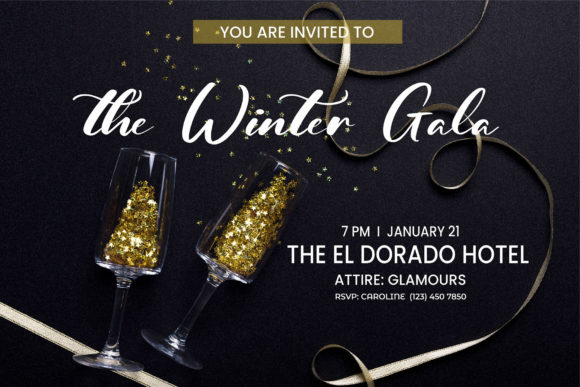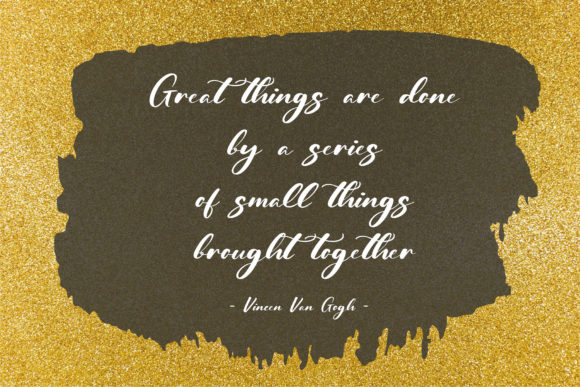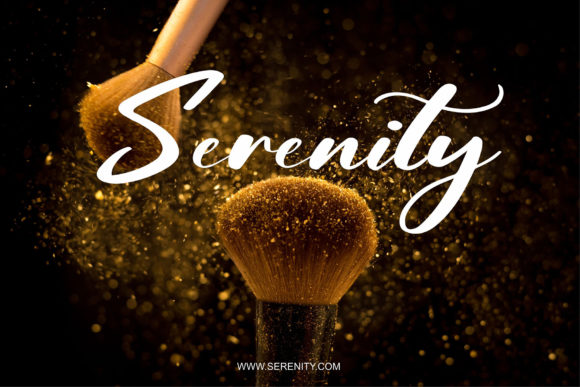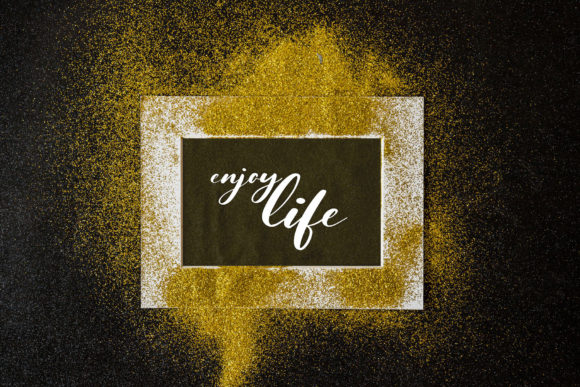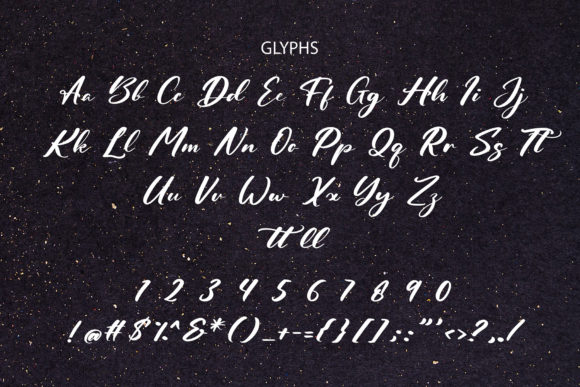
Introduction to Kagitta Font
Kagitta is an elegant handwritten font.
This gentle font will look gorgeous on a variety of design ideas It will add a joyful and romantic touch to each of your projects.
Kagitta Font offers exceptional quality and versatility, making it a valuable addition to your design toolkit. Whether you’re creating for personal projects or commercial use, Kagitta Font delivers professional results.